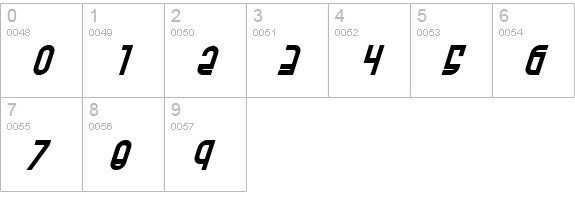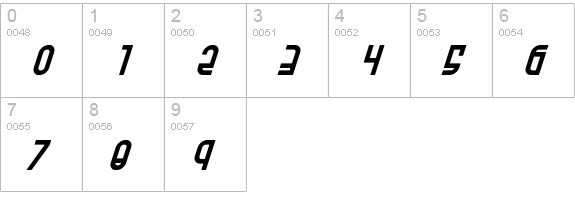
Ro'Ki'Kier Italic is a distinctive, italic variant in the Ro'Ki'Kier typeface family \xE2\x80\x94 well suited to design and typography projects.
Ro'Ki'Kier Italic is a sleek and modern font that exudes elegance and sophistication. Its italicized design adds a touch of flair and style to any project, making it perfect for use in branding, advertising, and creative design work. The flowing curves and unique letter shapes of Ro'Ki'Kier Italic will captivate your audience and enhance the overall visual appeal of your work. Best of all, Ro'Ki'Kier Italic is completely free to download! Simply visit FontsMarket.com to access this stunning font and elevate your designs to the next level. Whether you're a professional designer or an aspiring artist, Ro'Ki'Kier Italic is a must-have addition to your font collection. Download it today and unleash your creativity with this versatile and eye-catching typeface.